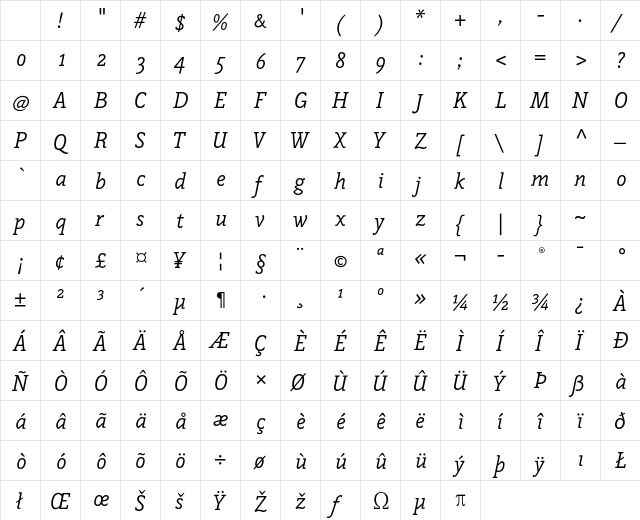
Napoleone Slab ITC Std Italic
Designer: Silvio Napoleone
Design Context for Napoleone Slab ITC Std
Napoleone Slab ITC Std features prominent, blocky serifs that give it a confident, grounded presence - equally at home in editorial settings and bold branding work. The slanted form adds forward momentum and visual energy.
Pro Tip: Use Napoleone Slab ITC Std for headlines and subheadings where its slab serifs can make an impression. It also holds up well in mid-size body copy thanks to its sturdy construction.